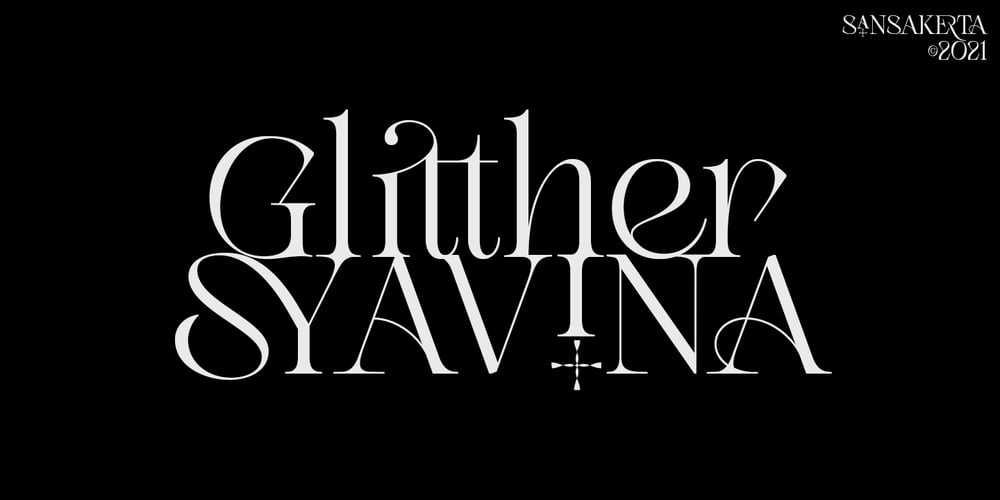
Glitther Syavina Font Family was designed by Dean Nugraha and published by Sansakerta. Glitther Syavina contains 1 styles and family package options. Glitther Syavina is a Fancy Modern vintage serif typeface with beautiful ligatures, tons of special alternative glyphs, and multilingual support. It’s a very versatile font that works great in large and small sizes. Perfect for editorial projects, Logo design, Clothing Branding, product packaging, magazine headers, or simply as a stylish text overlay to any background image.Features: Lowercase and Uppercase Stylistic Alternates & Ligatures Numerals & Punctuation Open glyphs panel:In Adobe Photoshop go to Window – glyphsIn Adobe Illustrator go to Type – glyphsFollow my shop for upcoming updates including additional glyphs and language support. And Please message me if you want your language included or If there are any features or glyph requests, feel free to send me a message, I would like to update it.